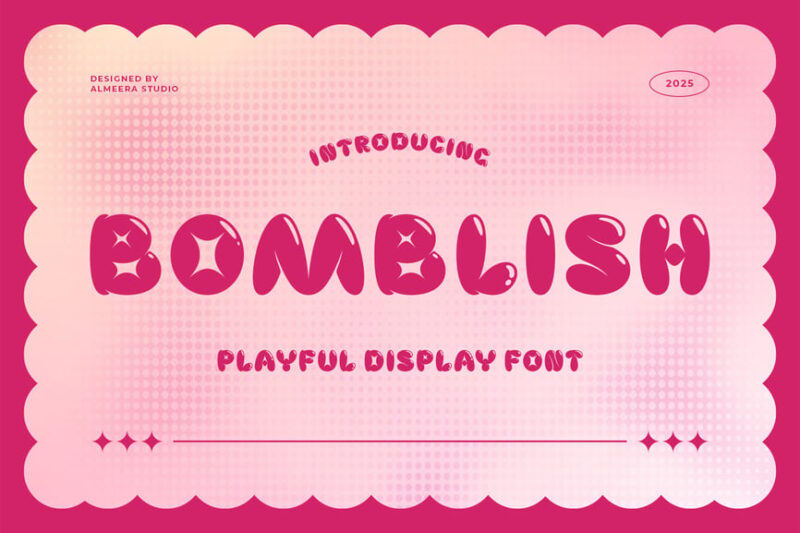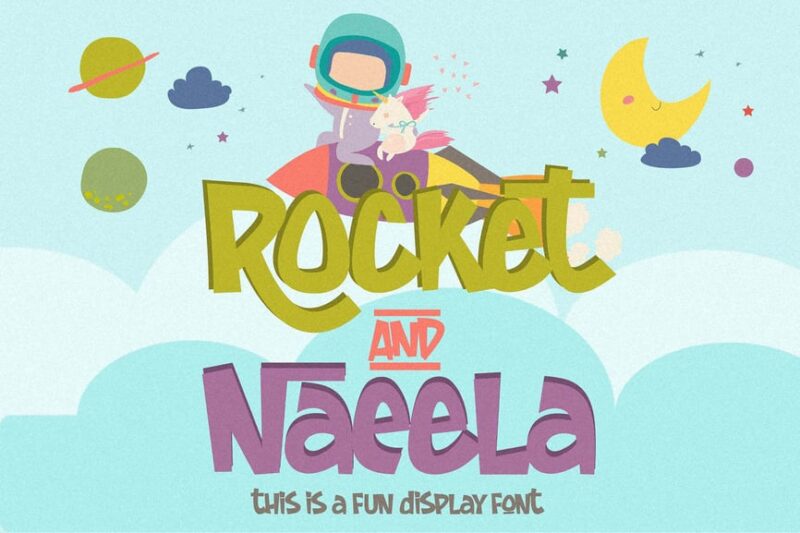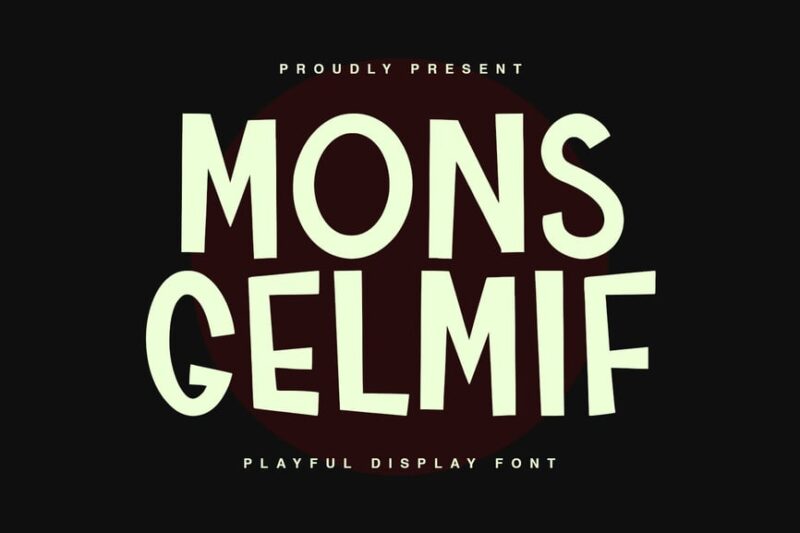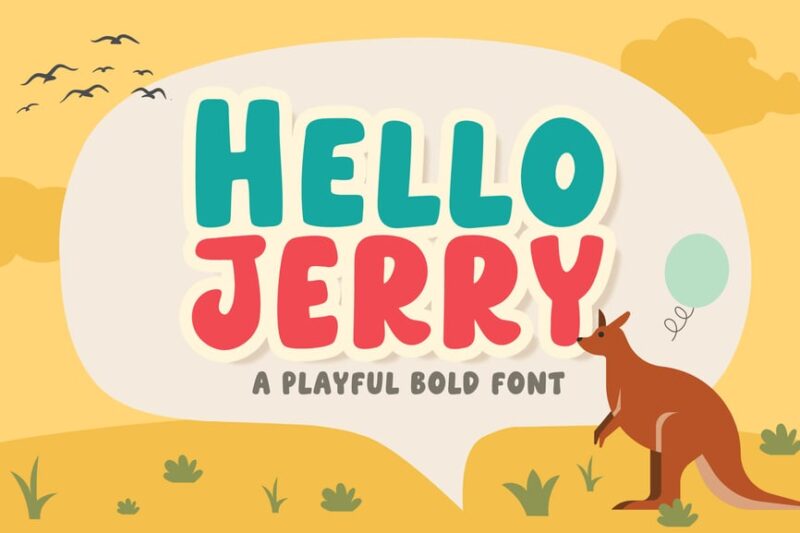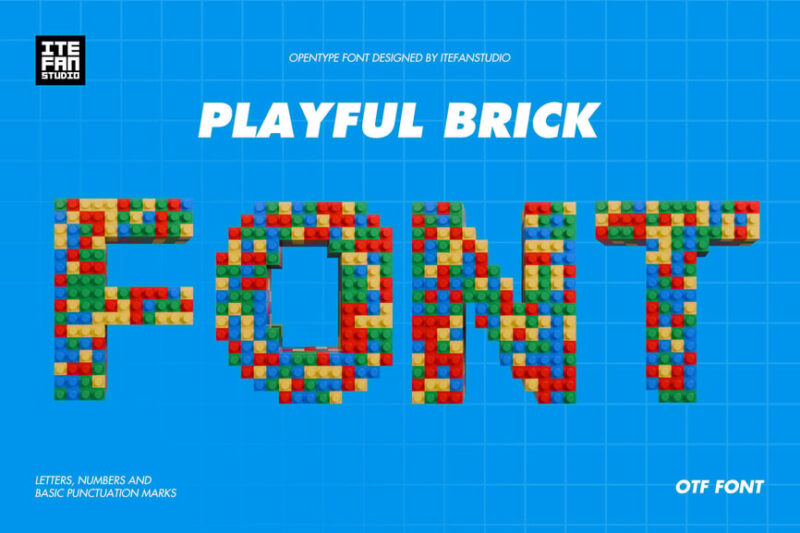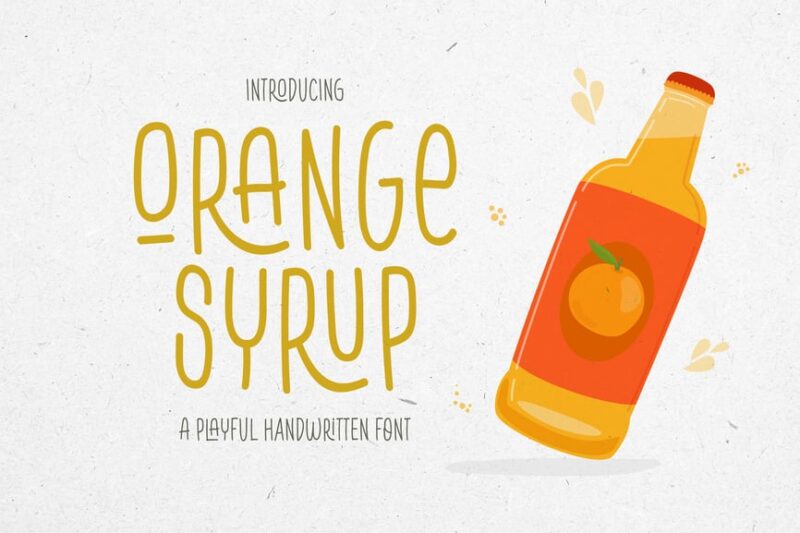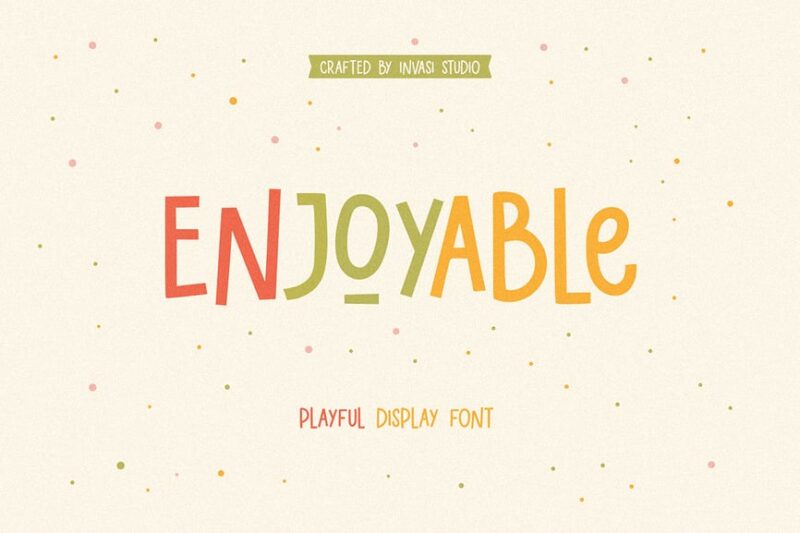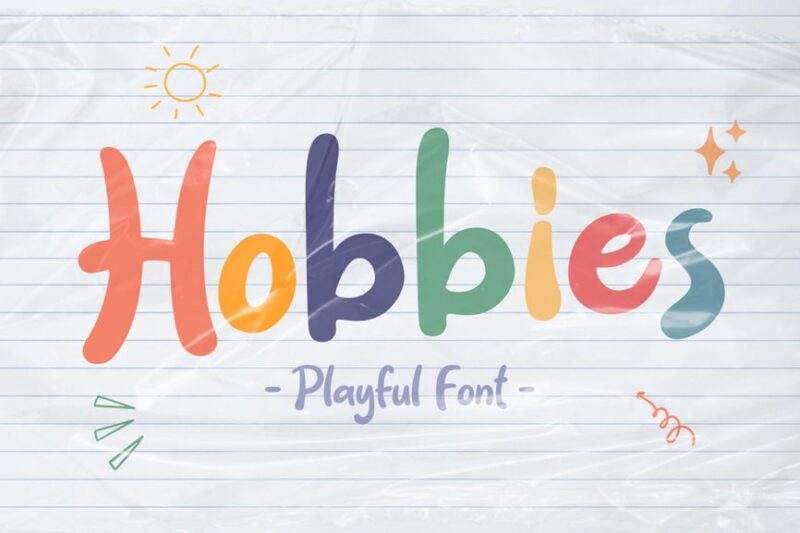
Let’s be honest – design doesn’t always have to be serious. Sometimes your project needs less “corporate boardroom” and more “confetti explosion.” That’s where playful fonts come in.
Playful fonts are the secret sauce that transforms a bland design into something that makes people smile. They’re the typographic equivalent of adding sprinkles to ice cream – not always necessary, but boy, do they make things better. Whether you’re working on a kids’ brand, a quirky social media post, or a design that just needs a little more personality, these fonts are your best friend.
What Exactly Makes a Font “Playful”?
Before we jump into specific fonts, let’s talk about what gives a typeface that unmistakable playful vibe. It’s not just about slapping a smiley face on a letter and calling it a day.
Personality Over Perfection
Playful fonts embrace imperfection. They might have wobbly baselines, uneven letter heights, or quirky details that make them feel handmade and human. This intentional “messiness” creates warmth and approachability – the opposite of cold, clinical corporate fonts.
Think about it: when you see perfectly aligned, mathematically precise letters, your brain reads “professional” or “formal.” But when letters bounce around a bit? That’s your brain saying “fun” and “friendly.”
Expressive Letterforms
Playful fonts often feature exaggerated characteristics. Maybe the loops are extra loopy, the tails are extra swoopy, or the letters have unexpected flourishes. These exaggerations give the font character – like a person with an infectious laugh or animated hand gestures.
The best playful fonts have letterforms that feel alive, like they’re ready to jump off the page and dance around.
Whimsical Details
Look closely at great playful fonts and you’ll spot delightful details. A heart dotting an “i.” A letter that looks like it’s winking. Swashes that curl just so. These little touches transform a simple typeface into something that sparks joy.
It’s these thoughtful details that separate truly playful fonts from fonts that are just trying too hard.
The Most Joyful Playful Fonts to Try in 2026
Now for the fun part – let’s explore some fantastic playful fonts that’ll bring energy and personality to your designs. I’ve curated this list to include a variety of styles, so whether you need something bubbly, quirky, or just plain fun, you’ll find inspiration here.
IB – Retro Playful
IB – Retro Playful is a delightful addition to the world of playful fonts. This script and handwritten typeface brings a nostalgic yet fun vibe to any design project, perfect for creating eye-catching logos and whimsical branding materials.
Roadland – A Playful Font
Roadland is a joyful and energetic playful font that illuminates designs with its vibrant character. This script and handwritten typeface is ideal for projects that require a touch of whimsy and light-hearted charm.
Cyutes – Playful Bubble Font
Cyutes brings the fun of bubble graffiti to digital design. This playful bubble font is perfect for creating eye-catching headlines and logos that pop with a youthful, energetic vibe.
Jog Woiner – Bouncy Playful Fonts
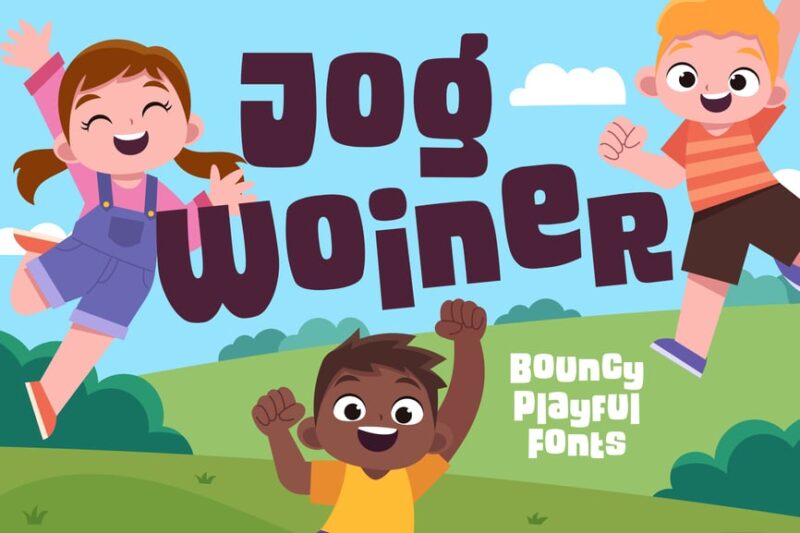
Jog Woiner is a lively addition to the family of playful fonts. This bouncy sans-serif typeface brings a sense of movement and energy to designs, making it perfect for fun, engaging projects.
Buddy Play – A Playful Display Font
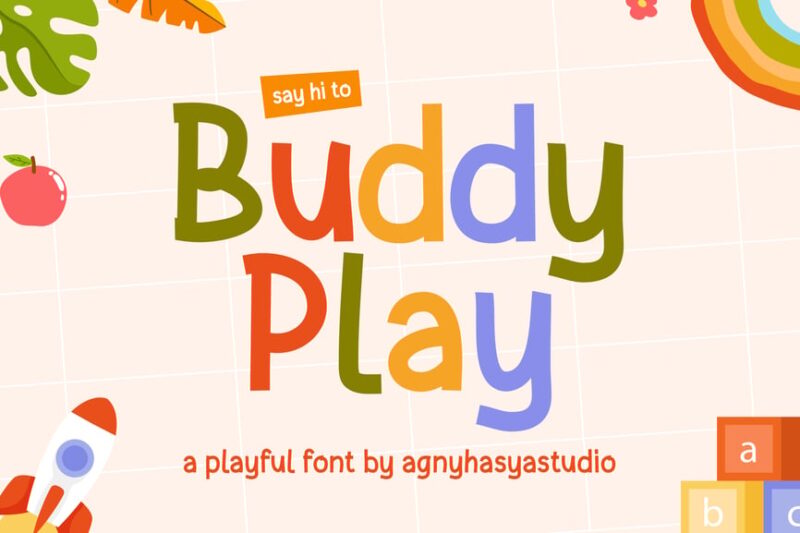
Buddy Play is a charming playful font designed with kids in mind. This decorative typeface brings a friendly, approachable feel to children’s books, educational materials, and other youth-oriented designs.
Burges Elbow – Playful Font In 2 Styles
Burges Elbow offers versatility with its two playful font styles. This bubbly, decorative typeface brings a fun and friendly vibe to designs, perfect for projects that need a touch of whimsy and charm.
The key is knowing when and how to use them. Match the font to your message and audience. Pair them wisely. Give them room to breathe. And never sacrifice clarity for cuteness.
Whether you’re designing for kids, creating social content, building a brand, or just adding some personality to a personal project, there’s a playful font waiting to bring your vision to life.
So go ahead – embrace the fun side of typography. Your designs (and your audience) will thank you. After all, in a world that often takes itself too seriously, a little typographic playfulness goes a long way.